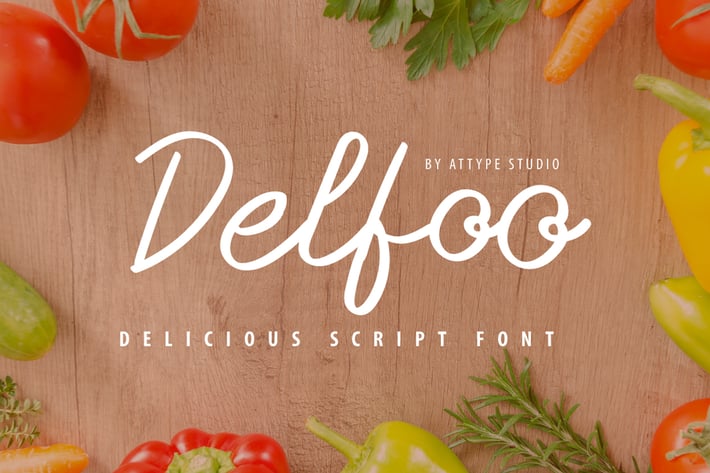
Delfoo - Script Font
Attype-Studio
Introducing the Delfoo, a stylish handwritten with script style. This beautiful script font offers your personal touch to your latest art project with fresh, elegant and delicious look.